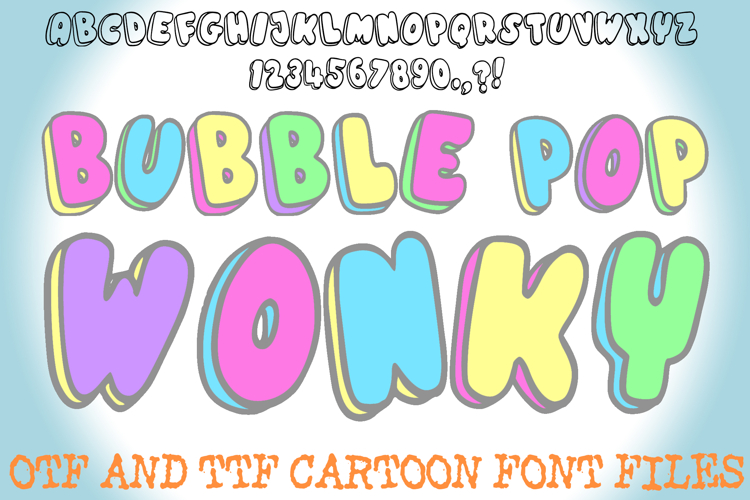
Bubble Pop Wonky 3D Cartoon Alphabet Lettering ABC Text Font
Dive into the fun with Bubble Pop Wonky, a wildly imaginative and vibrant 3D cartoon alphabet font crafted by Squeeb Creative. This irresistible typeface captures the essence of childhood fun with its bubbly, wonky, and hand-drawn style, making it the ultimate choice for projects that need a playful touch.
Perfectly suited for children's book covers, educational materials, fun branding, party and birthday invitations, nursery prints, t-shirt design, and whimsical digital art. The unique, multi-layered 3D effect gives every letter a mesmerizing depth and a candy-like appearance that instantly grabs attention.